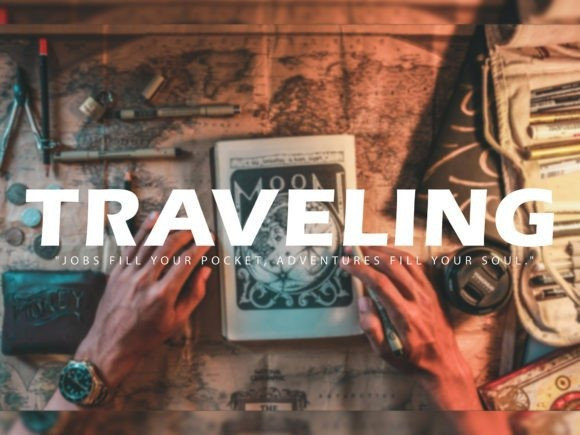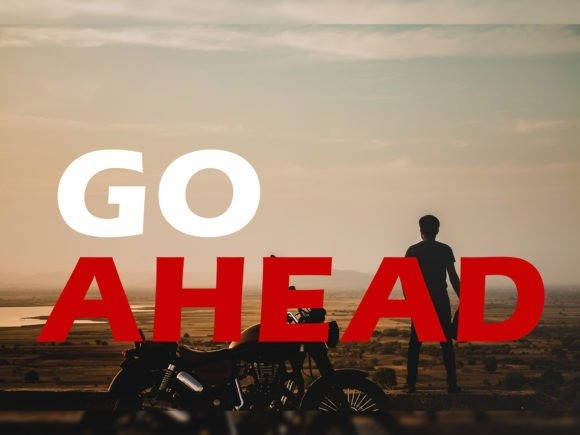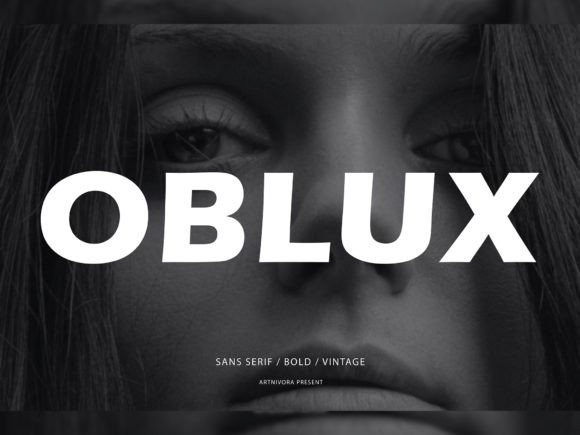
Oblux Font
Oblux Font, a simple and sans serif font. So perfect for you who needs a typeface for logo designs, magazine, social media, brochure, and many more.